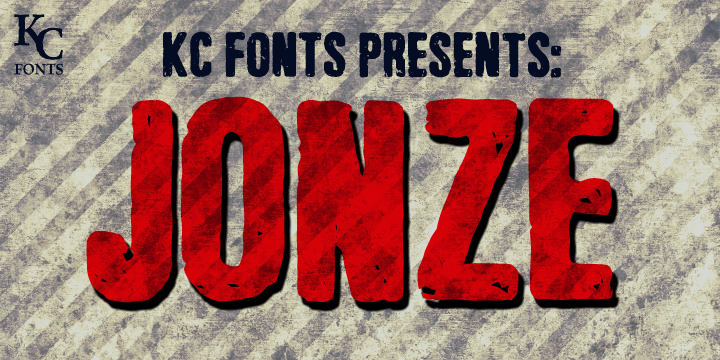
The Jonze Font is perfect for creative agency branding, artistic portfolios, indie music album covers, film festival posters, contemporary art exhibitions, experimental marketing campaigns, cultural event promotions, and avant-garde design projects. This versatile typeface excels in creative studios, entertainment companies, art galleries, independent publishers, and any brand seeking to communicate innovation, artistic vision, and unconventional thinking in their visual communications.
What makes Jonze Font so exciting is its bold, experimental character that pushes creative boundaries while maintaining sophisticated design integrity and exceptional functionality. The font features distinctive letterforms with unexpected angles, creative proportions, and innovative details that challenge conventional typography rules. Its artistic design philosophy makes it perfect for brands that want to stand out from mainstream competitors and communicate their commitment to creative excellence and original thinking.
The Jonze Font family includes diverse stylistic variations: Regular, Bold, Light, Medium, and Black weights, each available in upright and italic styles. Additionally, it offers experimental alternates, creative ligatures, and artistic flourishes that enhance the font's unconventional appeal. The family includes extended character sets with multilingual support and specialized glyphs for creative and artistic applications.
When you choose Jonze Font Free Download, you're selecting a typeface that embodies creative rebellion and artistic innovation while ensuring professional quality and readability. This font seamlessly combines experimental design with practical functionality, making it ideal for projects that demand both artistic impact and clear communication. The carefully crafted letterforms maintain legibility while the distinctive character shapes create memorable brand experiences that resonate with creative audiences.
Whether you're developing cutting-edge creative campaigns, designing innovative art projects, creating experimental marketing materials, or establishing a brand identity that celebrates artistic vision and creative freedom, this font delivers exceptional visual impact and emotional resonance. The Jonze Font transforms your content into compelling artistic statements that capture attention and communicate your brand's commitment to creative excellence.
This remarkable typeface represents the perfect fusion of artistic experimentation and typographic craftsmanship. Download this inspiring font today and discover how creative typography can elevate your projects, express artistic vision, and establish your brand as a leader in innovative design and creative thinking.